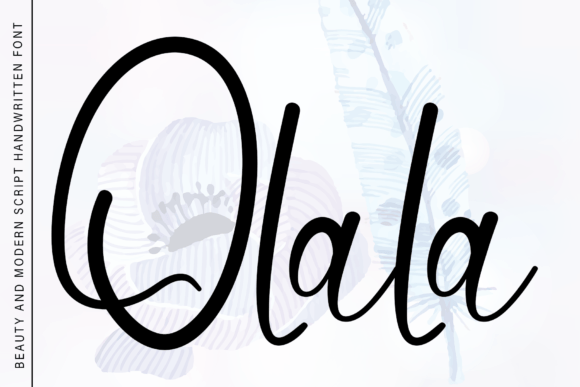
Introducing Olala Font - A Script Font That Captures Hearts and Ignites Creativity!
Step into the world of charming elegance and delightful aesthetics with Olala Font, a script font that exudes warmth and playfulness. Its delicate strokes, reminiscent of handwritten letters, evoke a sense of personal connection and heartfelt expression.
Crafted with meticulous attention to detail, Olala Font is a visual masterpiece that seamlessly blends modern and vintage styles. Its smooth curves and graceful loops create a harmonious flow, adding a touch of sophistication to any design.
Dive into the boundless possibilities of Olala Font. Whether you're crafting wedding invitations that whisper romance, designing cards that convey heartfelt messages, or creating branding that radiates warmth and charm, Olala Font is your perfect companion.
Immerse yourself in the beauty of Olala Font and let your imagination soar. Its versatility knows no bounds, extending from science posters that captivate young minds to social media posts that engage audiences with their whimsical charm.